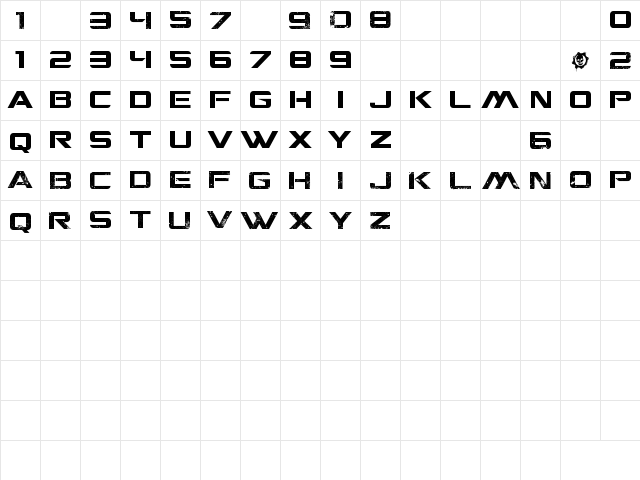
CGF Locust Resistance Regular
Design Context for CGF Locust Resistance Typeface
CGF Locust Resistance takes a measured approach to typography — its balanced proportions and neutral character make it a reliable workhorse for both digital and print work.